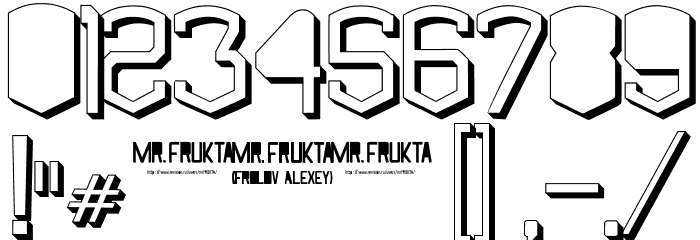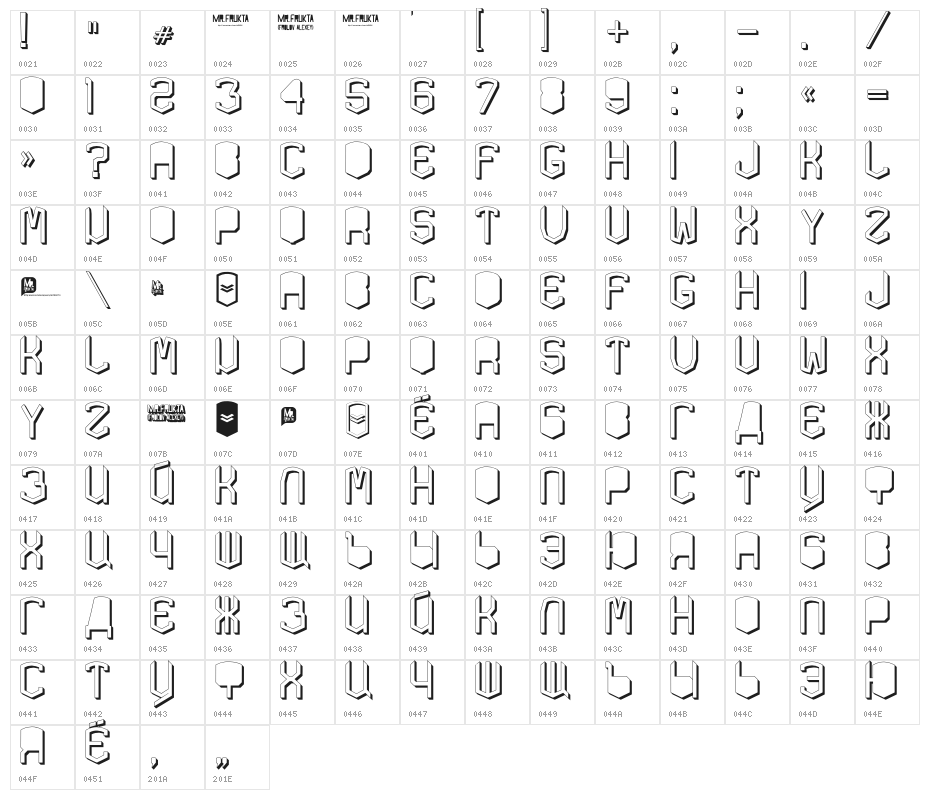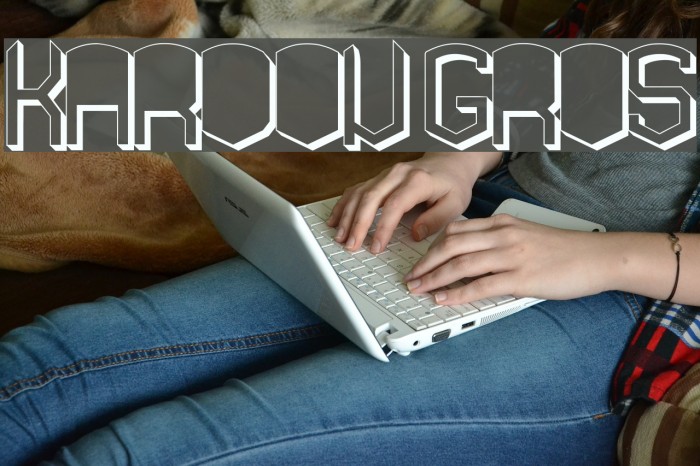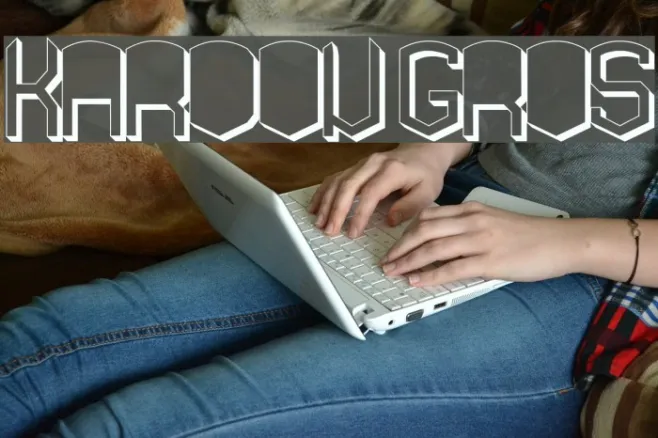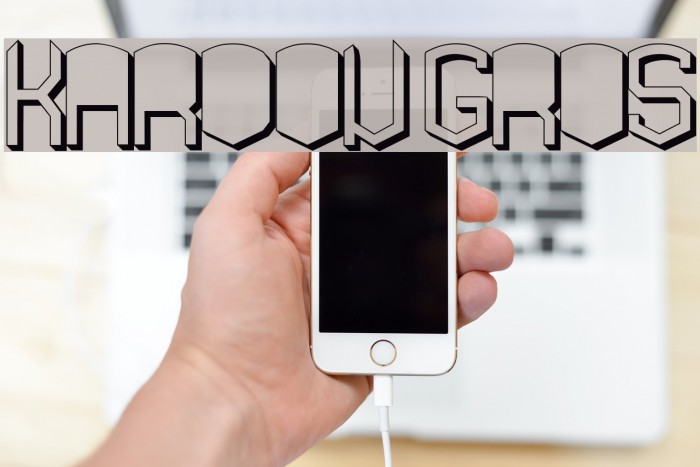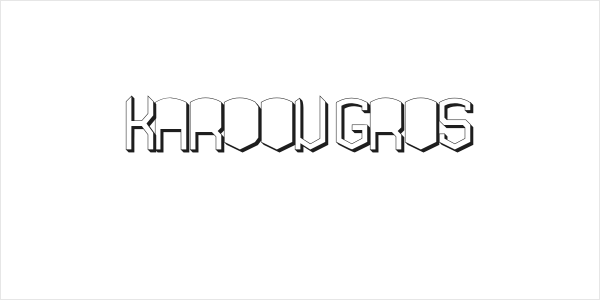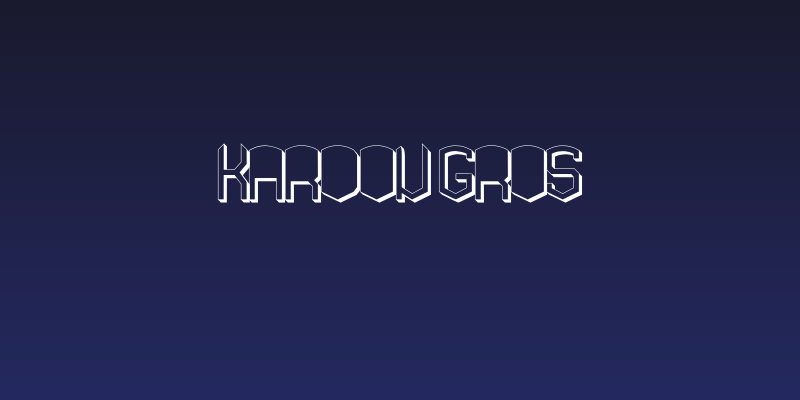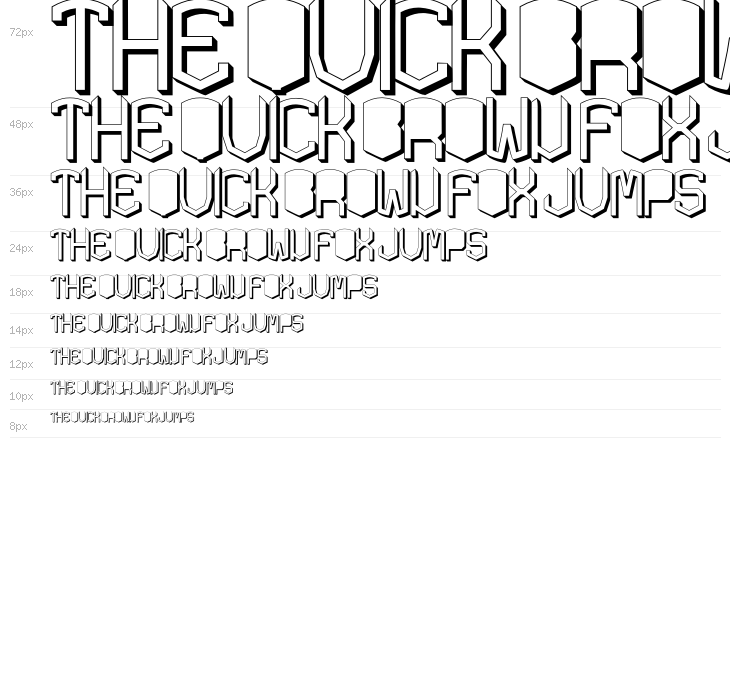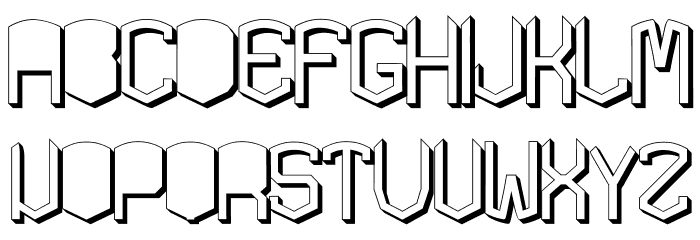
KARDON GROS Font
KARDON GROS Description
This font features a bold, geometric design with a three-dimensional effect. The characters are outlined with a shadow that gives them a striking, block-like appearance. The uppercase and lowercase letters maintain a consistent style, with sharp angles and clean lines. The numerals and special characters follow the same design principles, ensuring uniformity across all elements. This font is ideal for projects that require a modern and impactful visual presence.